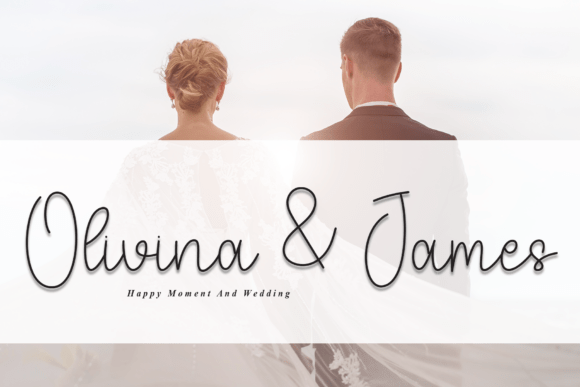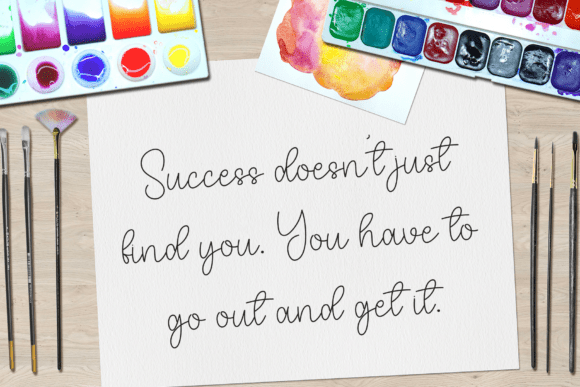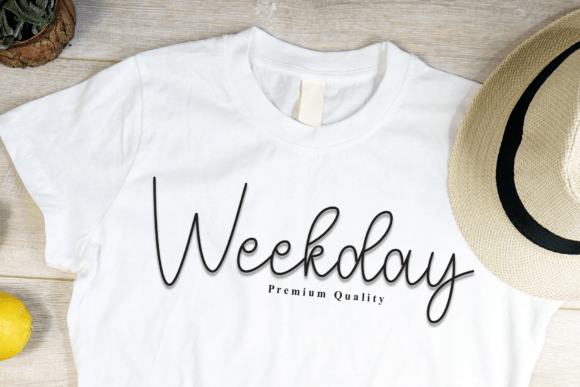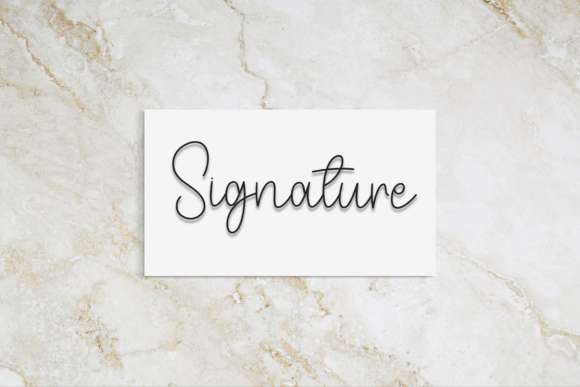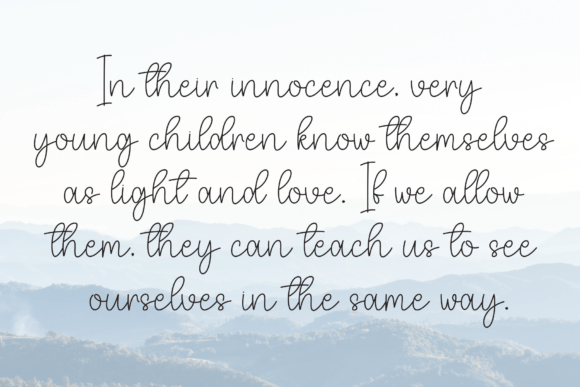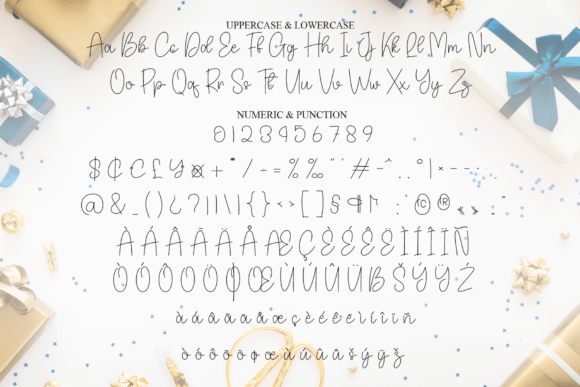
Introducing Birthday Font: A Delightful Handcrafted Display Font
Are you looking for a font that can add a touch of whimsy and elegance to your designs? Look no further than the Birthday Font, a charming and delightful handcrafted display font that’s perfect for a variety of creative projects. In this article, we’ll take a closer look at the features and benefits of this beautiful font, and explore how it can be used to add a dash of fun and personality to your designs.
A Font that’s as Sweet as it is Elegant
The Birthday Font is a handcrafted display font that’s infused with an irresistible blend of playfulness and elegance. Its delicate and sweet design makes it perfect for adding a touch of whimsy to your designs, while its elegant lines and curves ensure that it remains sophisticated and refined. Whether you’re creating wedding invitations, greeting cards, or any other type of design that calls for an uplifting and fresh vibe, this font is sure to impress.
Key Features of the Birthday Font
So, what makes the Birthday Font so special? Here are just a few of its key features:
- Handcrafted design: Each letter has been carefully crafted by hand, giving the font a unique and personal touch.
- Delicate and sweet: The font’s design is characterized by its delicate lines and curves, making it perfect for adding a touch of whimsy to your designs.
- Elegant and refined: Despite its playful nature, the Birthday Font remains sophisticated and refined, making it suitable for a wide range of design projects.
- Perfect for display text: The font’s bold and eye-catching design makes it perfect for use in display text, such as headings and titles.
Uses for the Birthday Font
The Birthday Font is a versatile font that can be used in a wide range of design projects. Here are just a few ideas to get you started:
- Wedding invitations: The font’s elegant and refined design makes it perfect for wedding invitations, while its playful nature adds a touch of romance and whimsy.
- Greeting cards: Whether you’re creating birthday cards, Christmas cards, or any other type of greeting card, the Birthday Font is sure to add a touch of personality and charm.
- Social media graphics: The font’s bold and eye-catching design makes it perfect for use in social media graphics, such as Facebook posts and Instagram stories.
- Logos and branding: The Birthday Font’s unique and memorable design makes it perfect for use in logos and branding, particularly for businesses that want to add a touch of whimsy and personality to their brand.
Tips for Using the Birthday Font
Here are a few tips for getting the most out of the Birthday Font:
- Use it sparingly: While the Birthday Font is perfect for display text, it can be overwhelming if used too much. Use it sparingly to add a touch of personality to your designs.
- Experiment with colors: The font’s delicate design makes it perfect for use with a wide range of colors. Experiment with different colors and combinations to find the one that works best for your design.
- Pair it with other fonts: The Birthday Font can be paired with other fonts to create a unique and interesting design. Experiment with different font combinations to find the one that works best for your project.
The Birthday Font is a charming and delightful handcrafted display font that’s perfect for adding a touch of whimsy and elegance to your designs. With its delicate and sweet design, elegant lines and curves, and bold and eye-catching display text, this font is sure to impress. Whether you’re creating wedding invitations, greeting cards, or any other type of design that calls for an uplifting and fresh vibe, the Birthday Font is a great choice. So why not give it a try and see how it can add a dash of fun and personality to your designs?